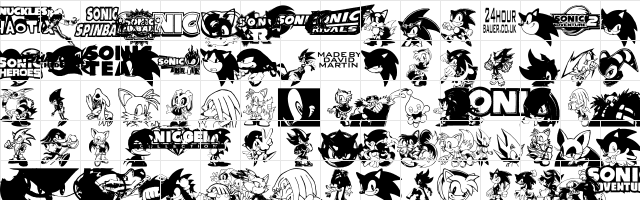
Sonic Mega Font Regular
Design Context for Sonic Mega Font Typeface
Sonic Mega Font is a composed and adaptable typeface that performs quietly and consistently across a wide range of design contexts.
Pro Tip: Pair Sonic Mega Font with a font of contrasting weight or personality to build a more expressive typographic hierarchy.